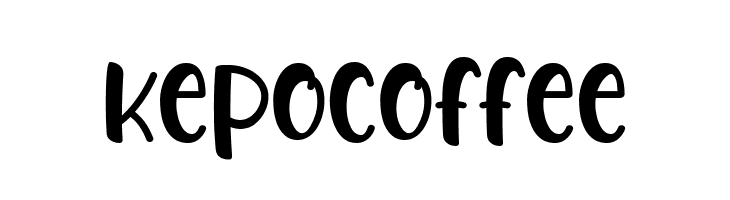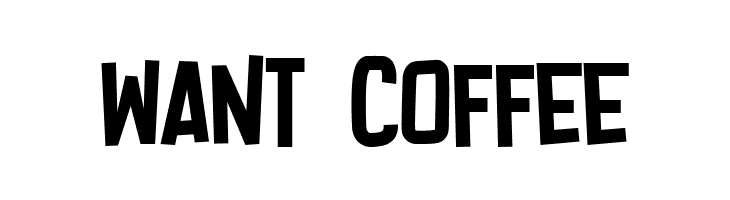
( Fonts by PressGang Studios )
Bold, angular, and slightly slanted font with a dynamic style.
( Fonts by PressGang Studios )
A bold, jagged font with an edgy, irregular style.
A playful, bold handwritten font with a smooth, rounded style.
( Fonts by Khurasan )
A bold, playful font with rounded, thick strokes and a hand-drawn feel.
( Fonts by Khurasan )
A bold, playful font with rounded, hand-drawn characters.
( Fonts by Dez C )
A playful, handwritten font with a whimsical and friendly style.
( Fonts by Khurasan )
A bold, angular, and geometric font with high contrast and a modern style.
( Fonts by Khurasan )
A playful, bold handwritten font with a casual and friendly appearance.
( Fonts by Khurasan )
A playful, bold font with rounded, bubbly characters and smooth curves.
( Fonts by Khurasan )
A playful, bold handwritten font with rounded edges and a friendly appearance.